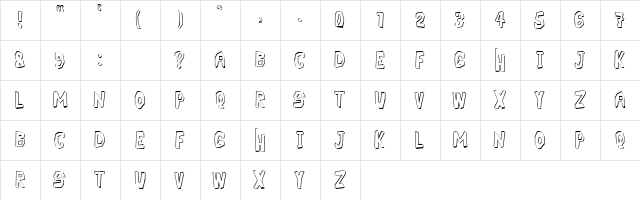
BACK DROP Regular
Design Context for BACK DROP Typeface
BACK DROP is a composed and adaptable typeface that performs quietly and consistently across a wide range of design contexts.